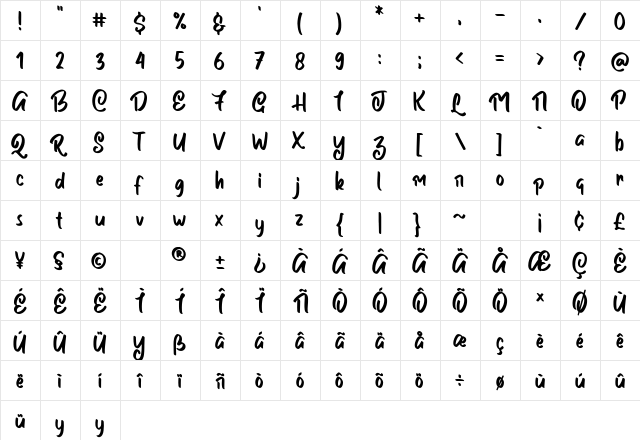
Oise Leliord Regular
| Designer | Ghazi Humam Fauzan |
Design Context for Oise Leliord Typeface
Oise Leliord is a composed and adaptable typeface that performs quietly and consistently across a wide range of design contexts.